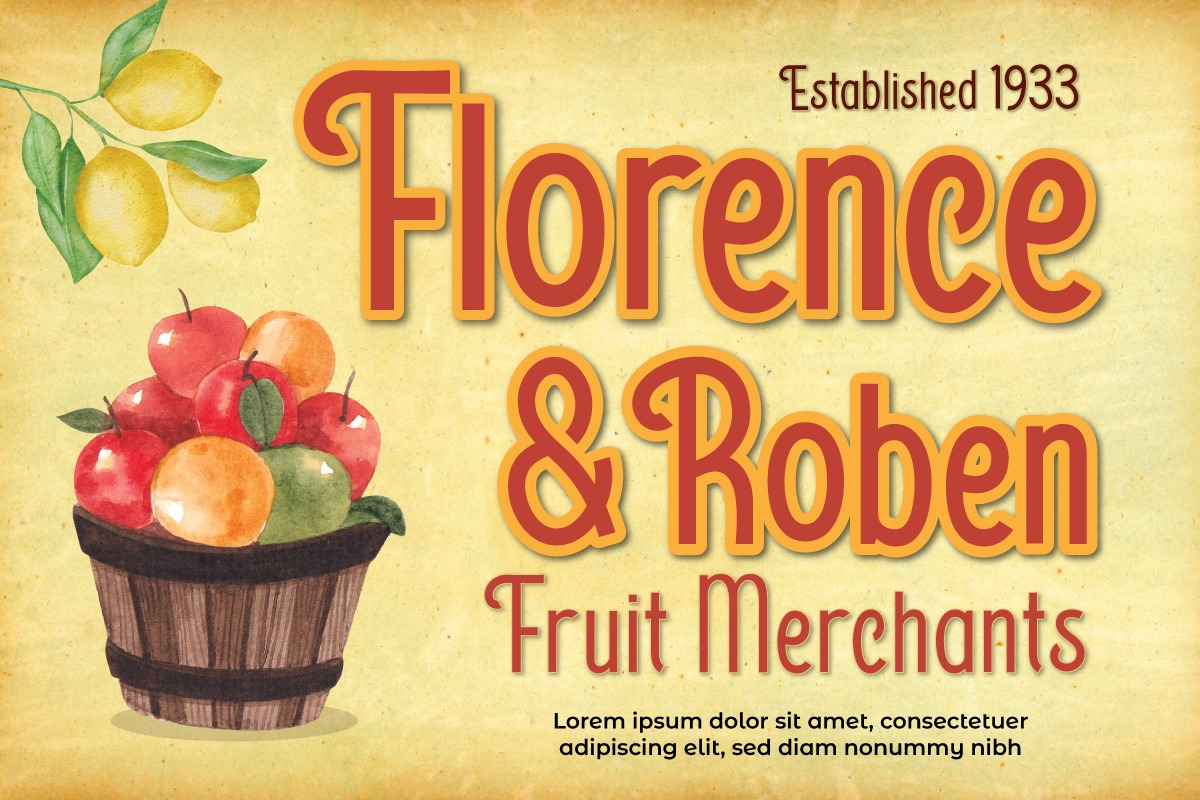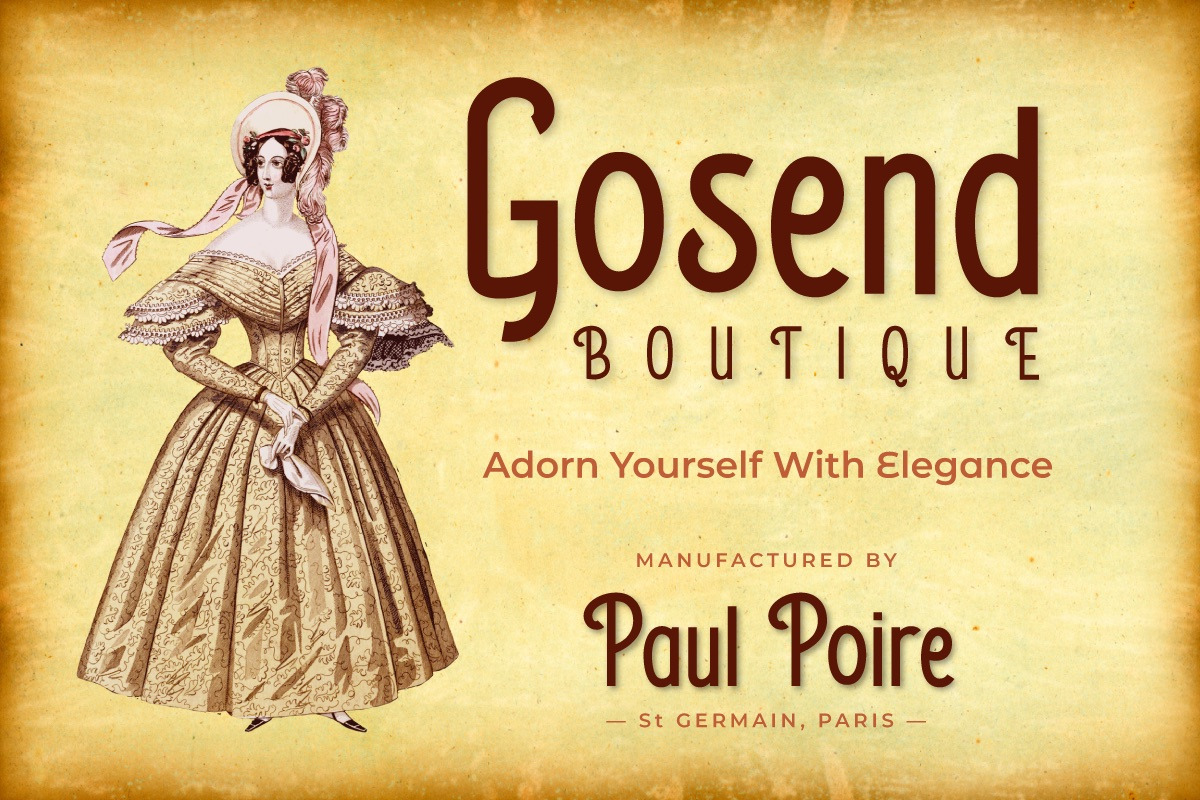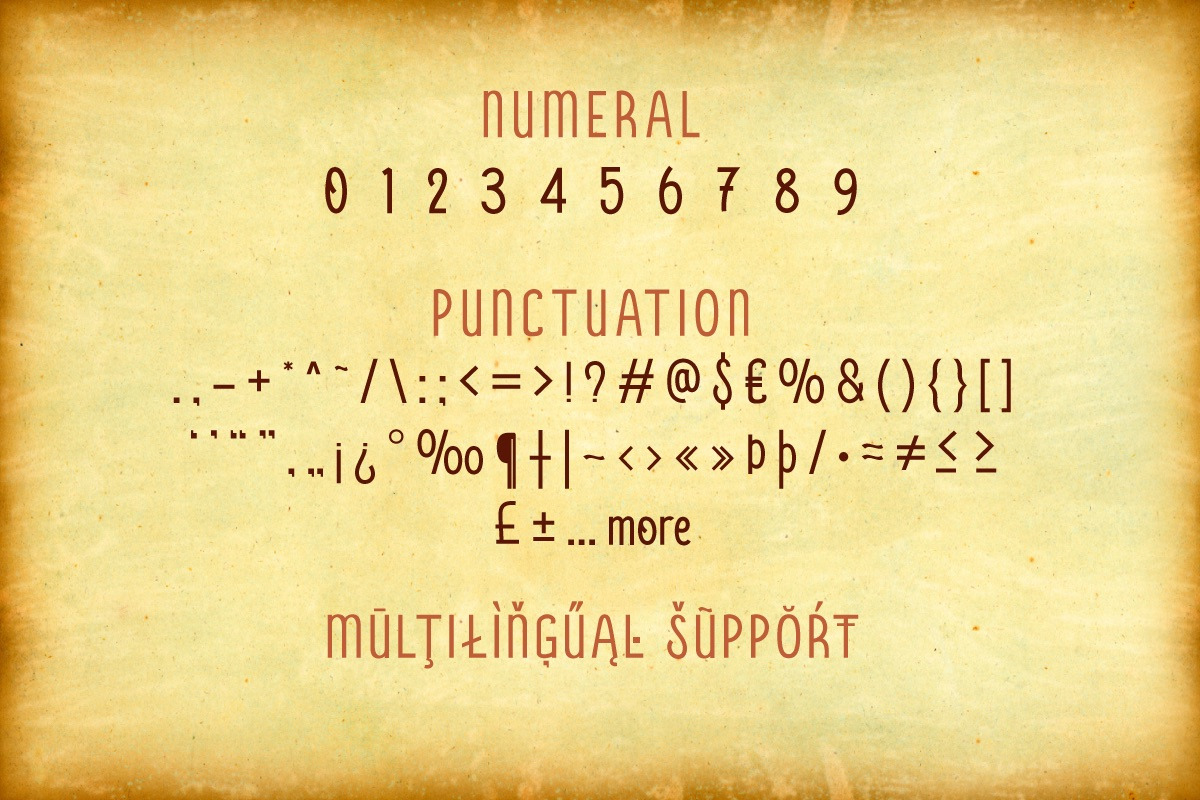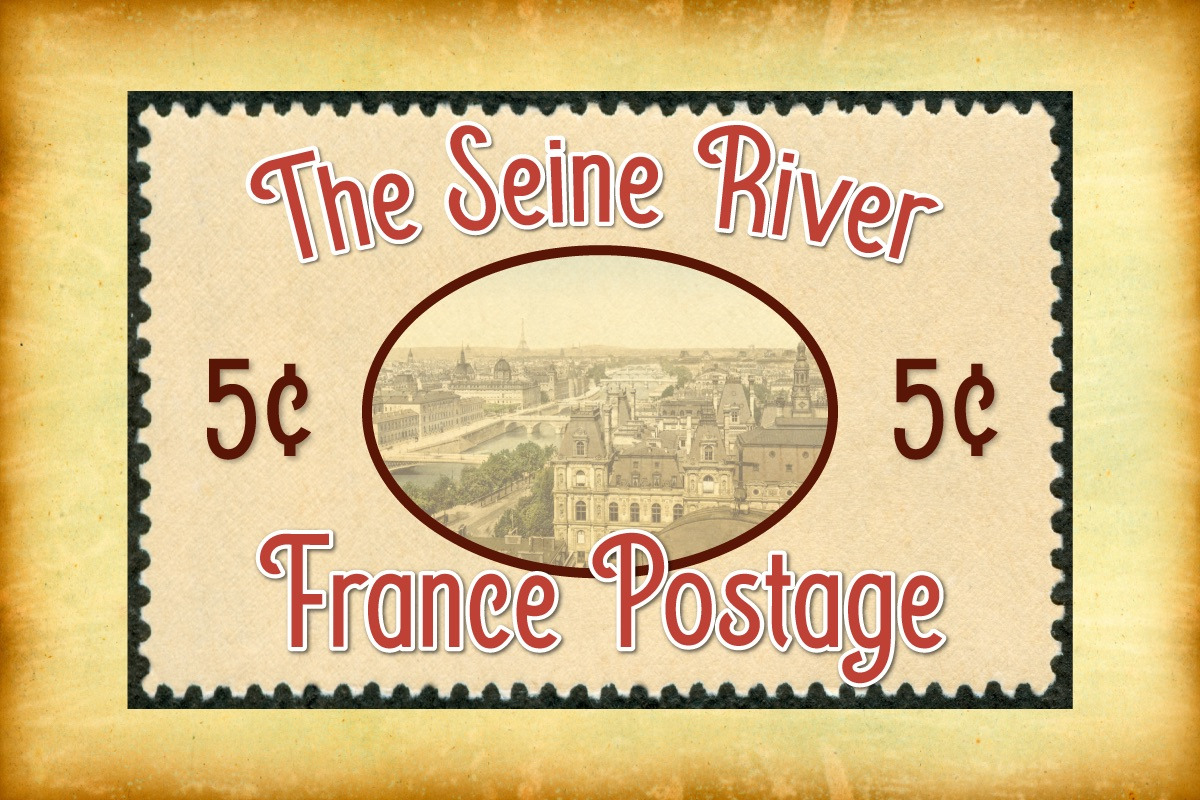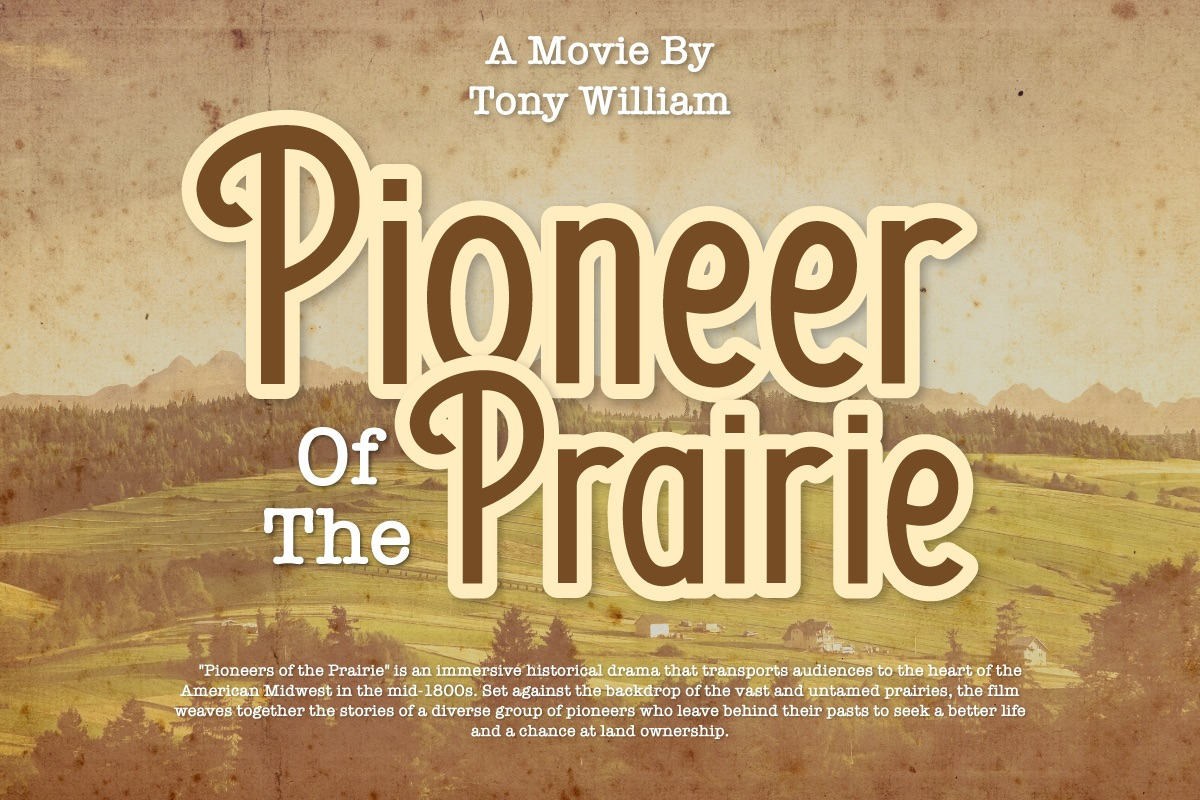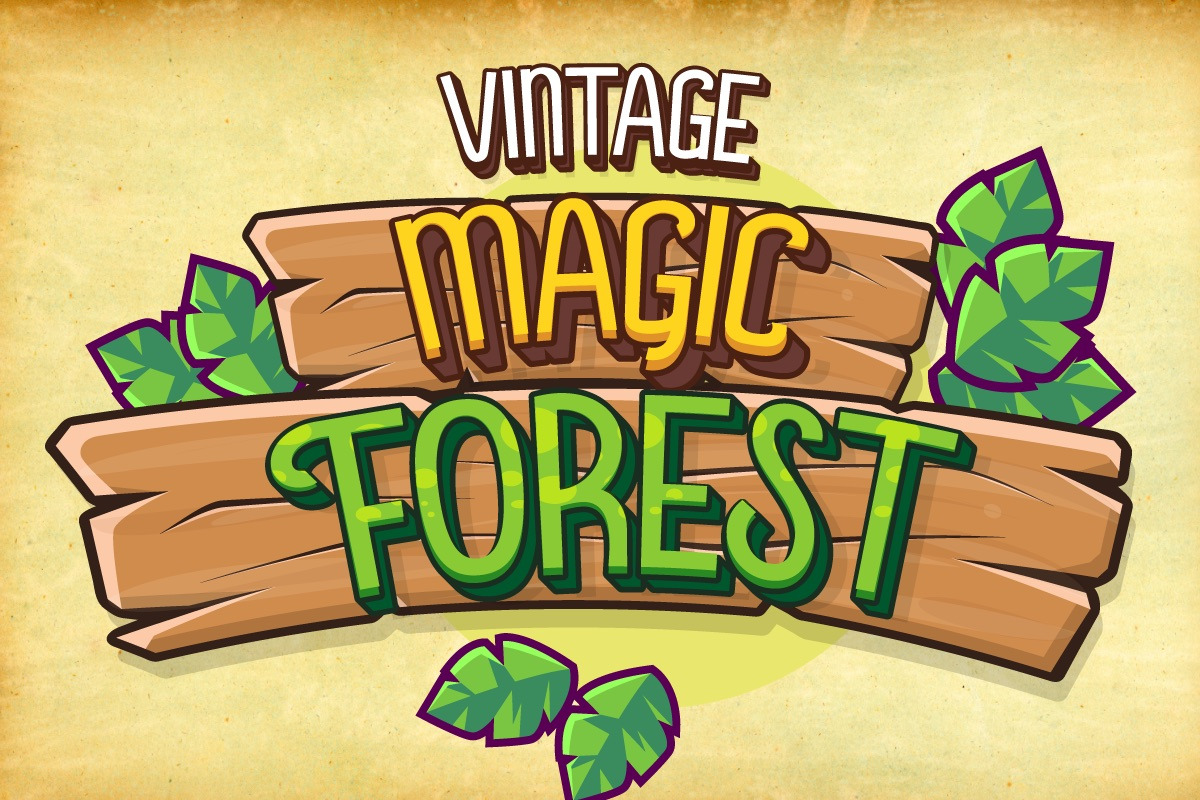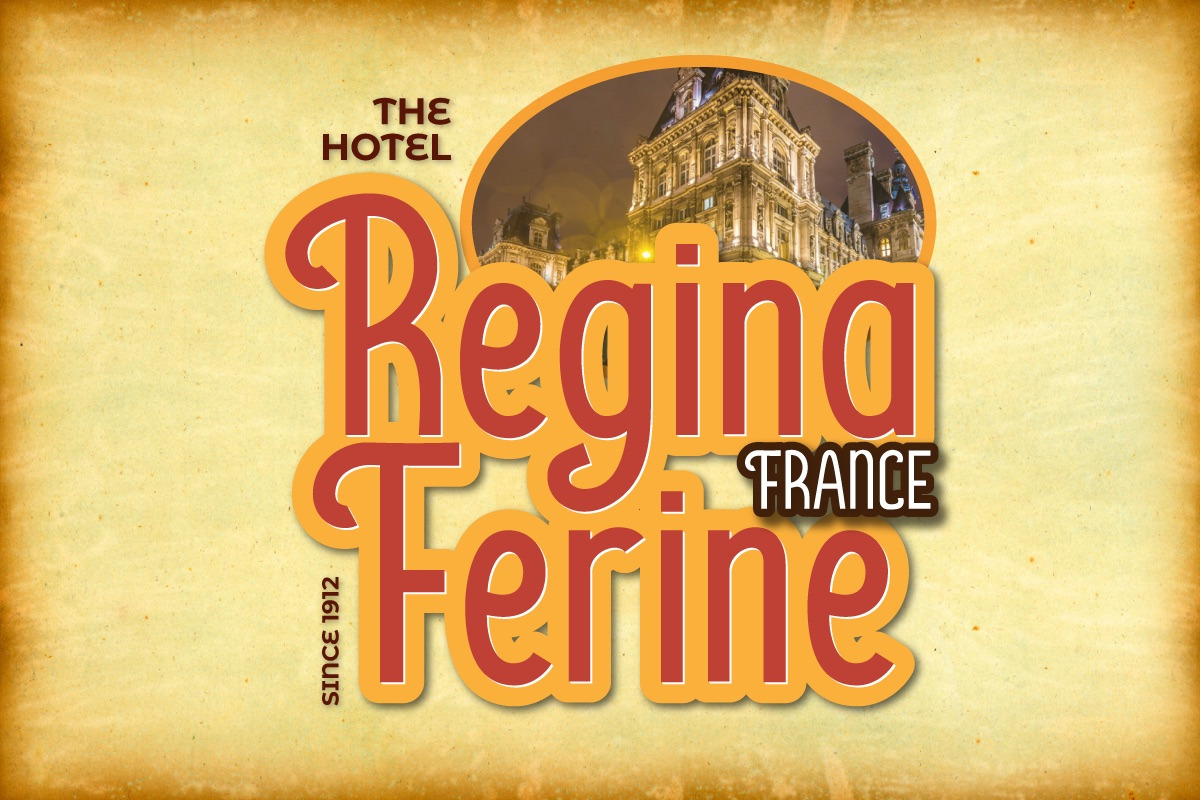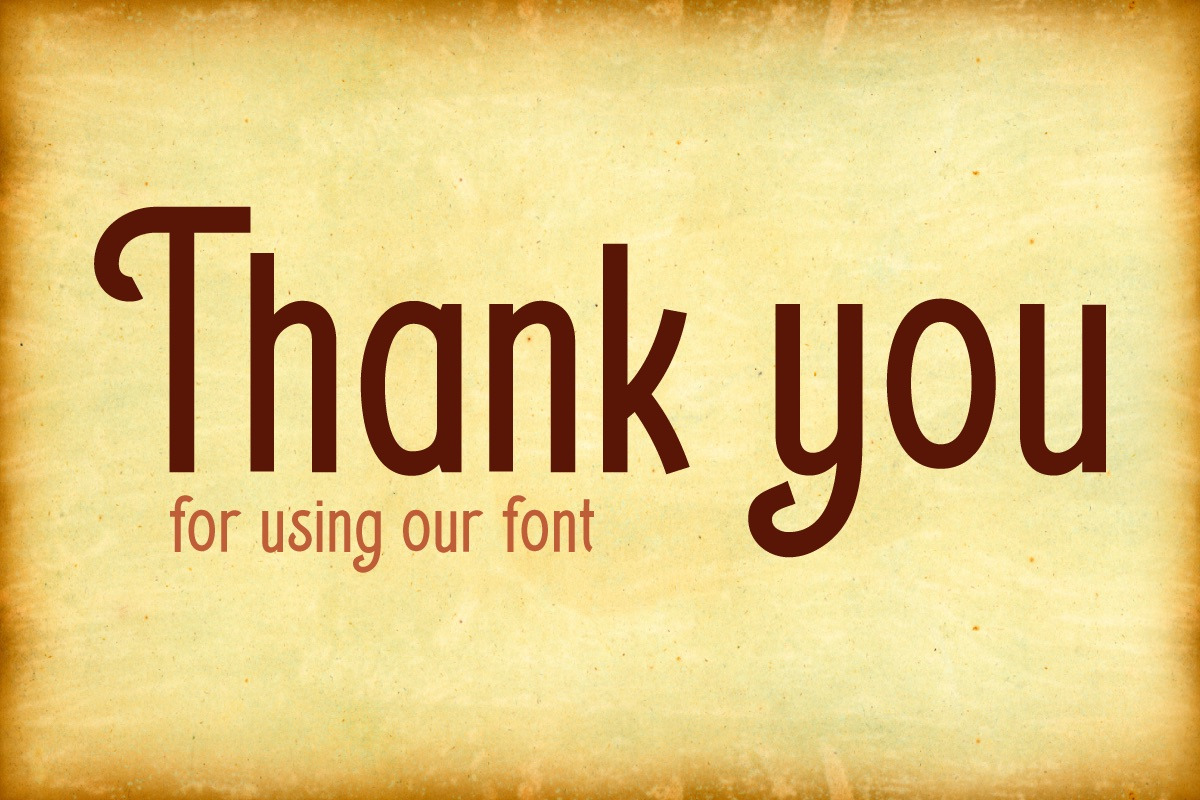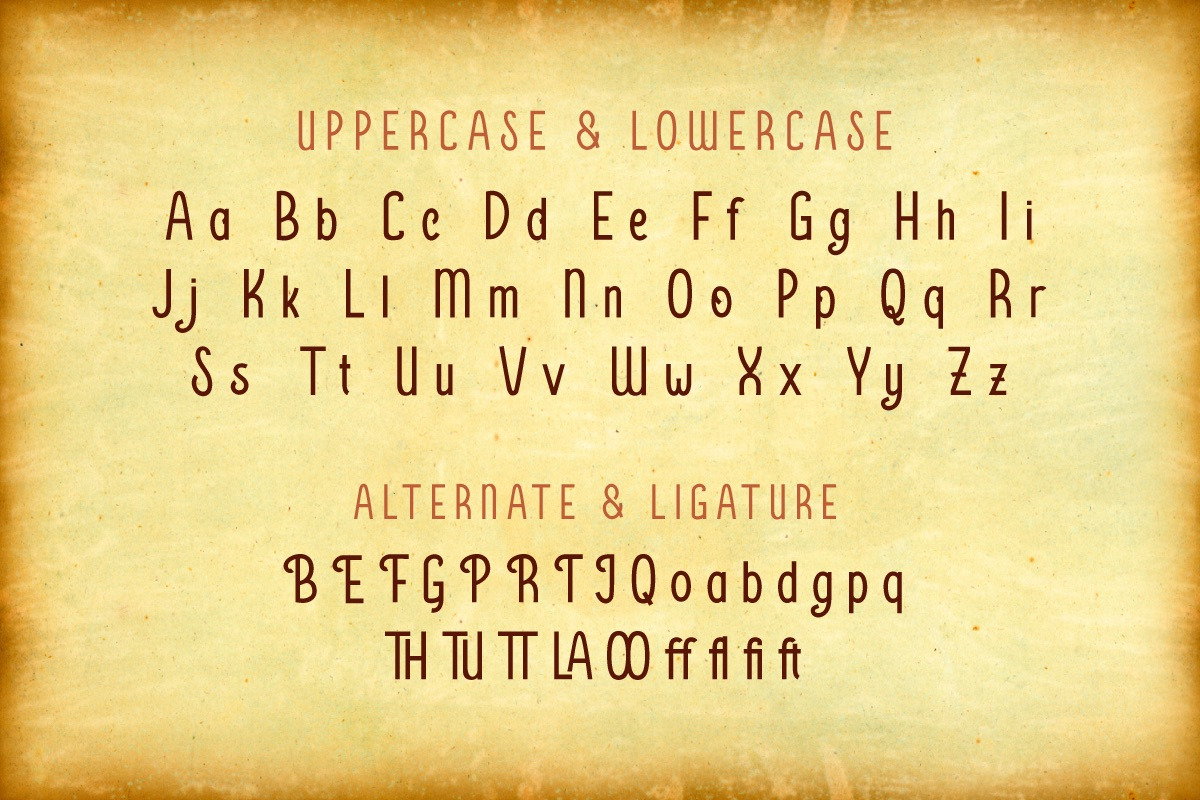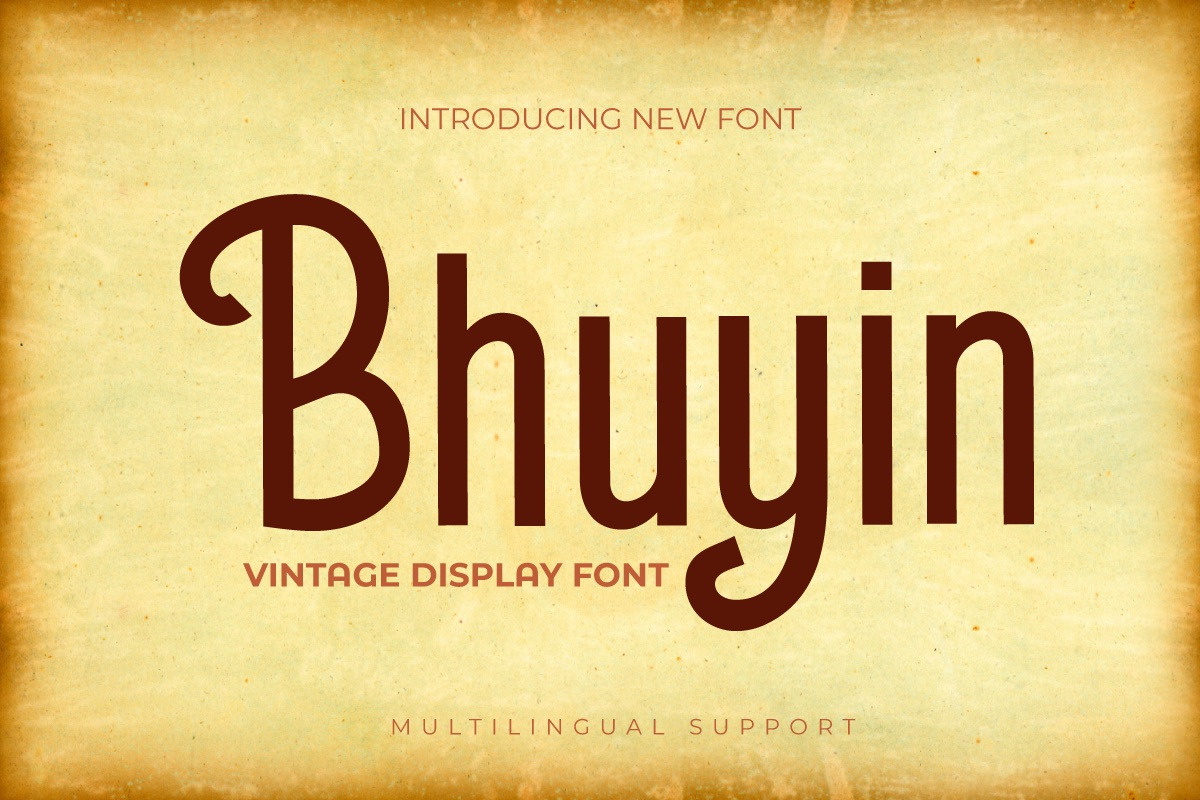
Bhuyin - Display Font
"Welcome to the world of one-of-a-kind typography!" Bhuyin is a display typeface with a totally unique sense of design. Bhuyin is the ideal choice if you need a bold and distinct style for a wide range of visual design tasks.
What distinguishes Bhuyin from others? Its attributes are fantastic. With ligatures and alternatives available, Bhuyin allows you to express yourself in an infinite number of ways. You can quickly construct one-of-a-kind letter combinations to lend a particular, personalized touch to any project.
Because we understand the value of interacting with a worldwide audience, Bhuyin supports several languages. Your message will be clearly and successfully delivered to individuals all around the world.